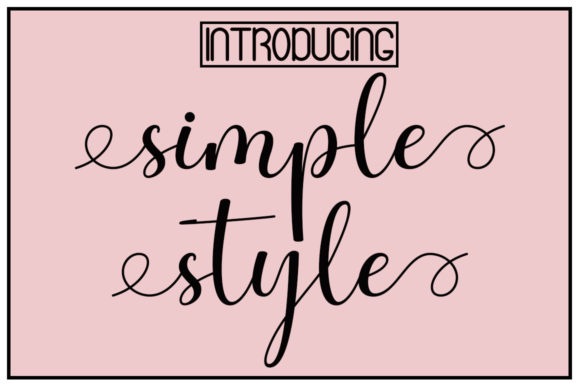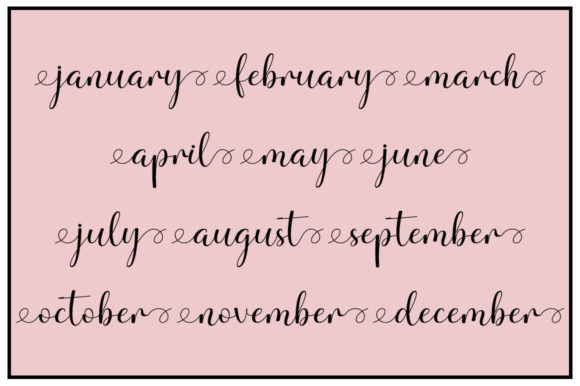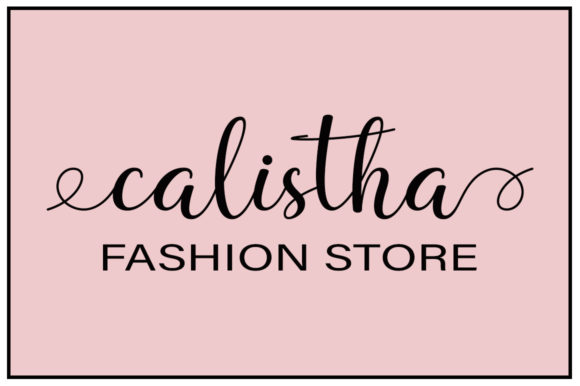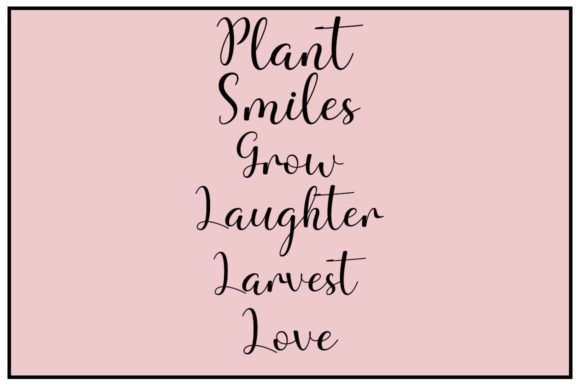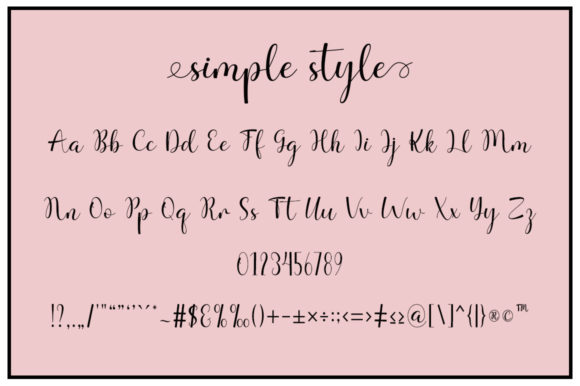
Simple Style Font
About Simple Style Font
Simple Style is a romantic and sweet handwritten font, featuring characters that dance along the baseline. It will add a luxurious spark to any project you wish to create! This font is PUA encoded which means you can access all of the amazing glyphs and ligatures with ease!